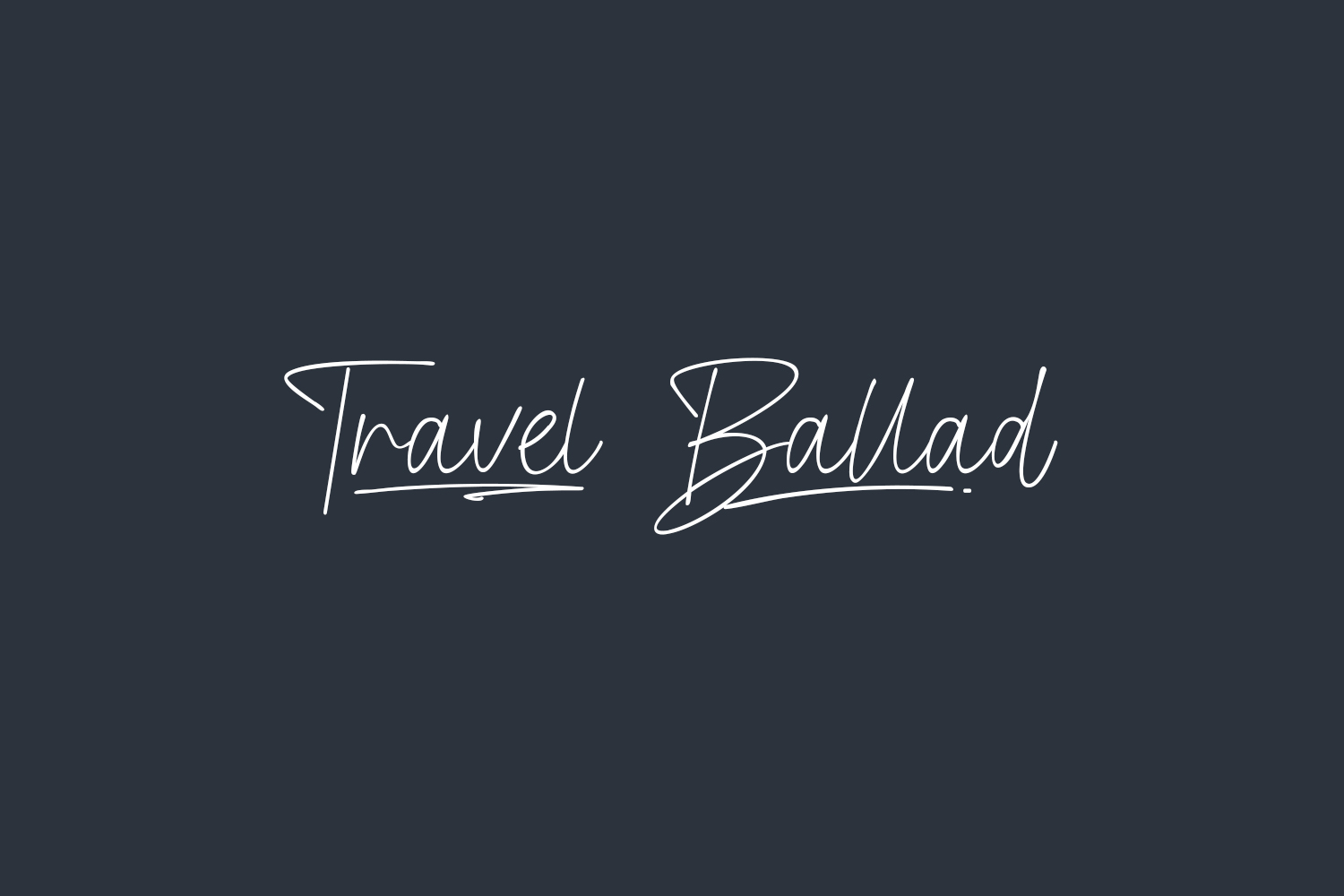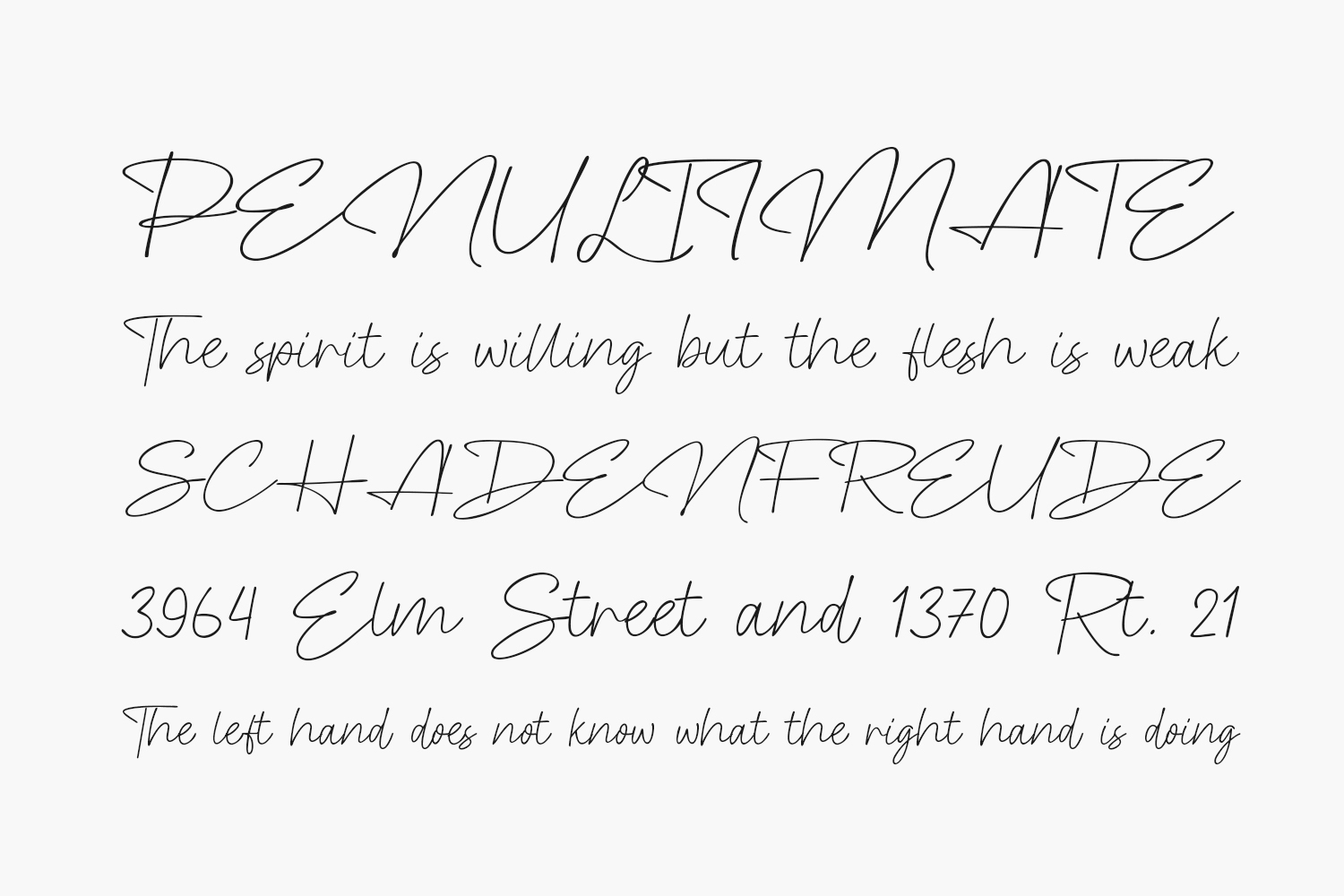
Introducing Travel Ballad Free Font, a clean, stylish, modern, and elegant script font that is bound to elevate your design projects. Whether you’re working on posters, logos, magazines, book covers, banners, or any other creative endeavor, this font is the perfect choice.
With its sleek and sophisticated aesthetics, Travel Ballad adds a touch of elegance to your designs. Its clean lines and contemporary style make it versatile and adaptable to a wide range of projects, ensuring that your creations exude a sense of professionalism and visual appeal. Travel Ballad Free Font is free for personal use only. Please purchase the full version for commercial use.